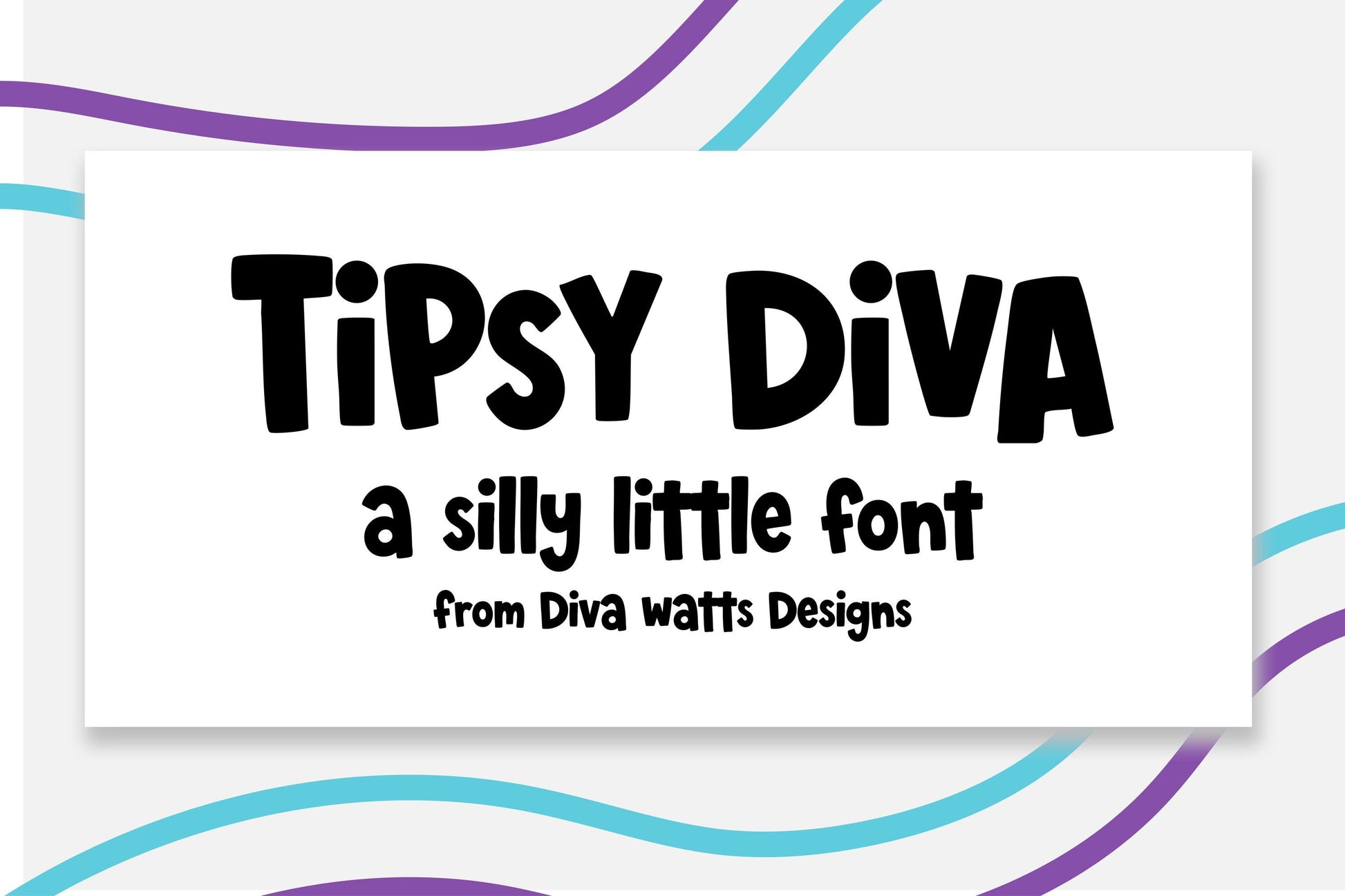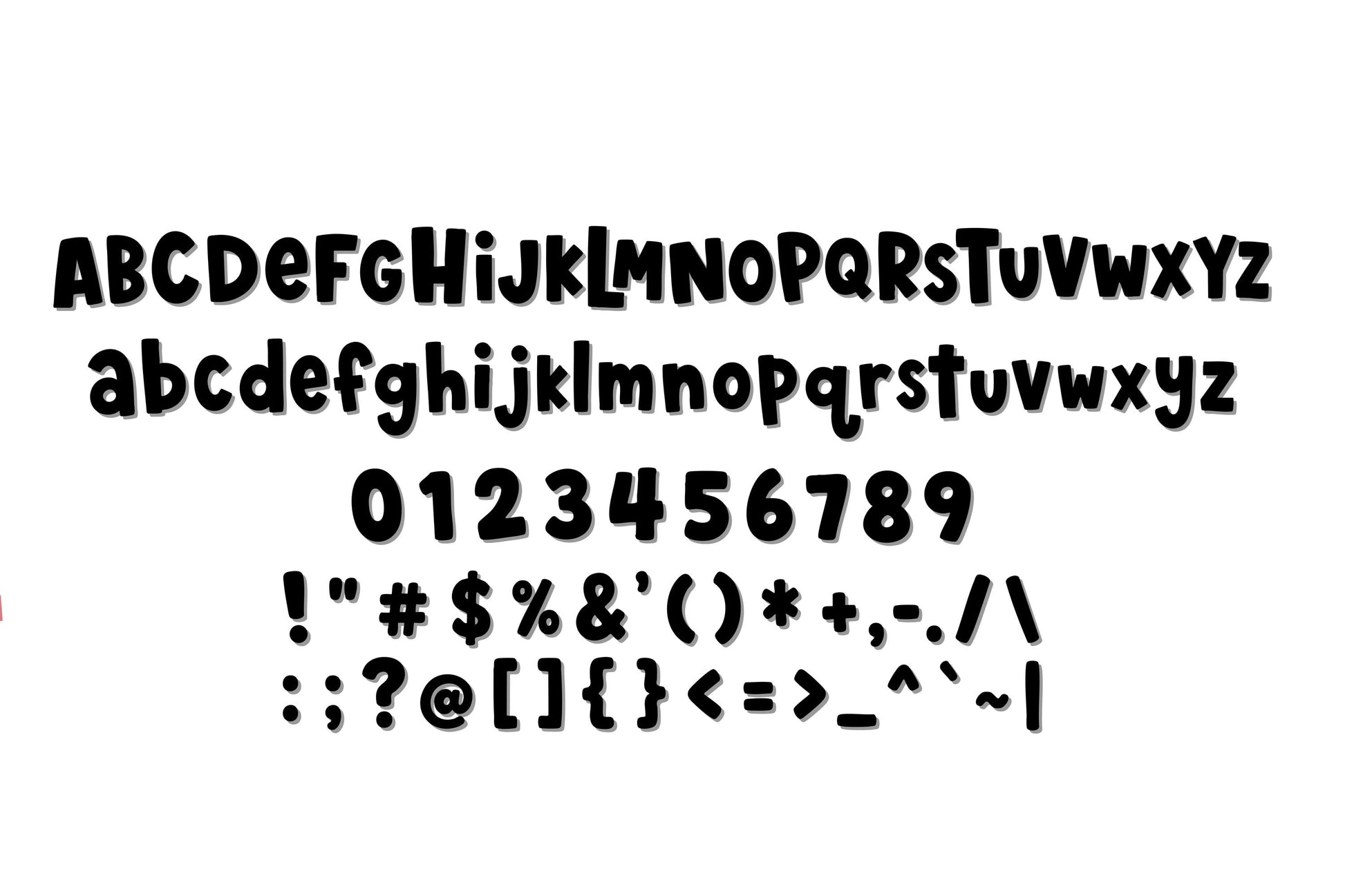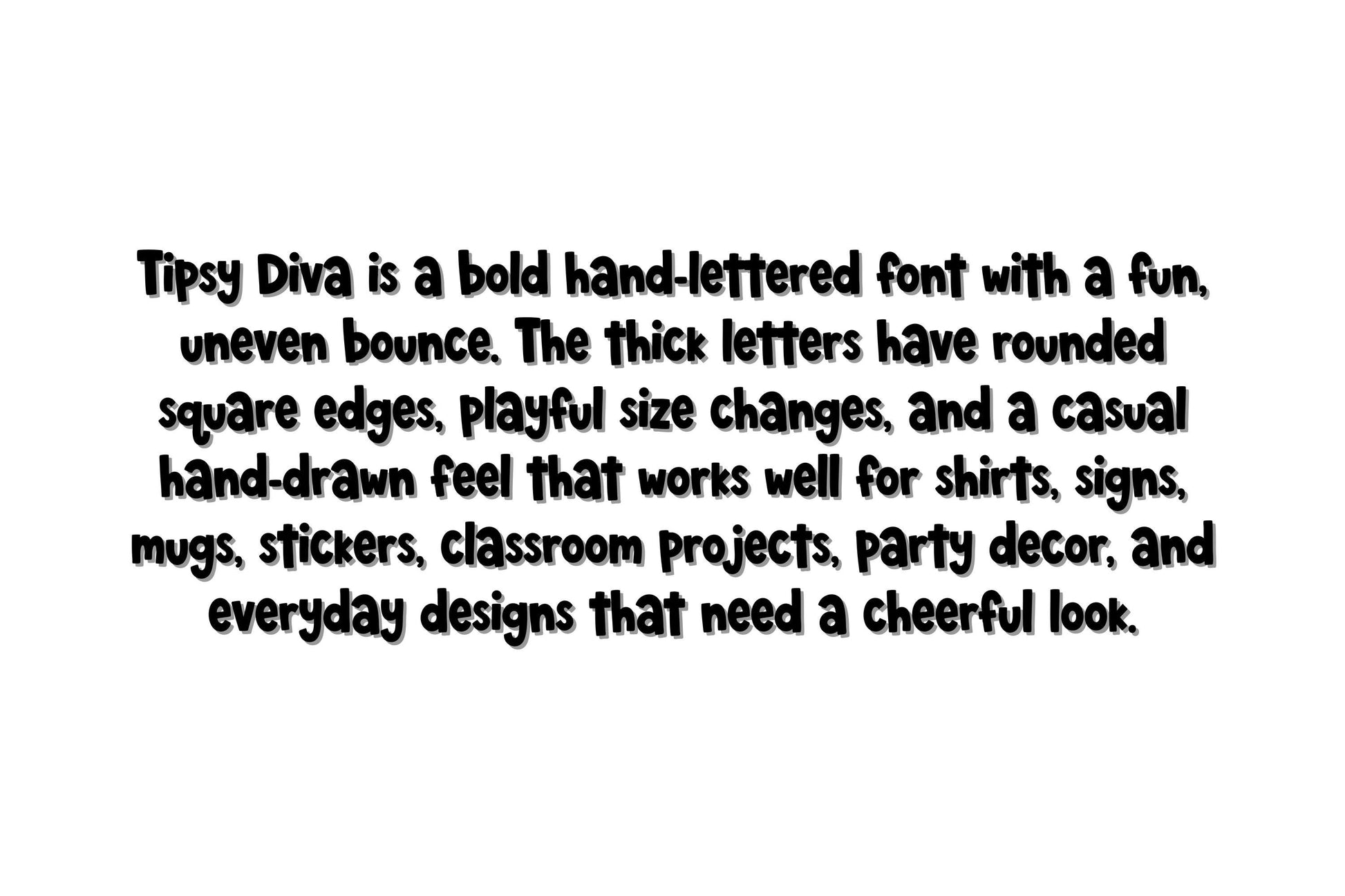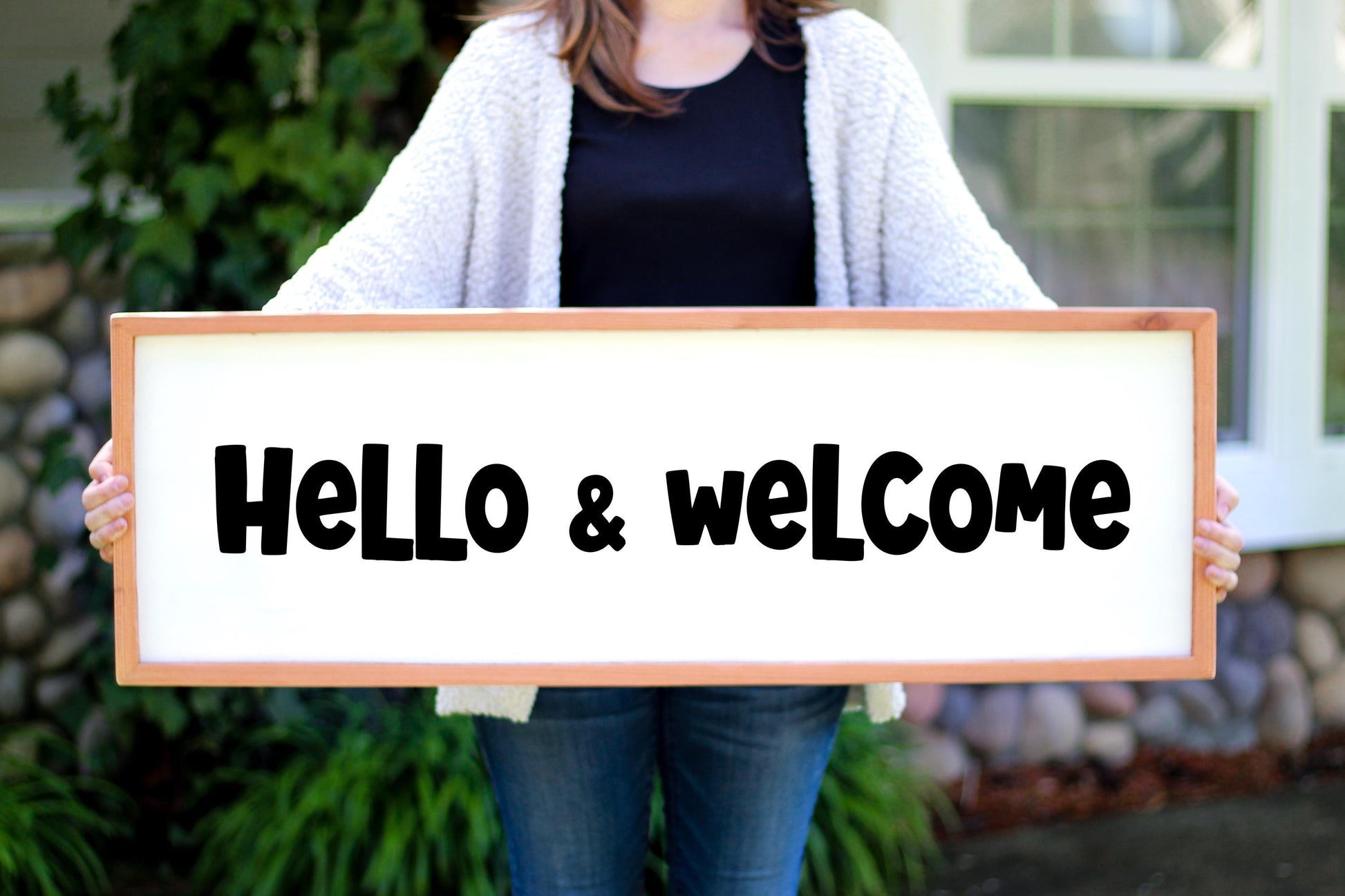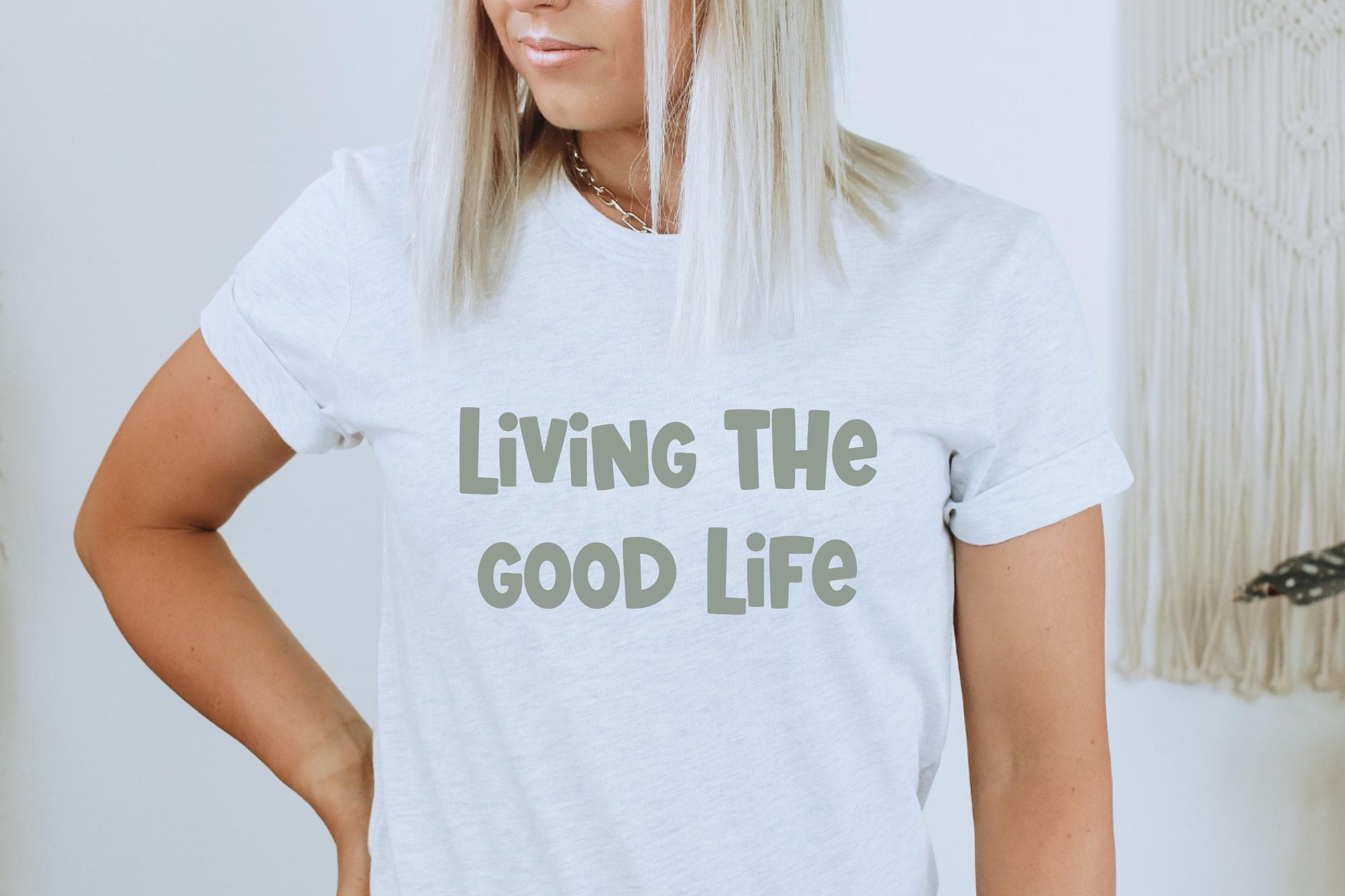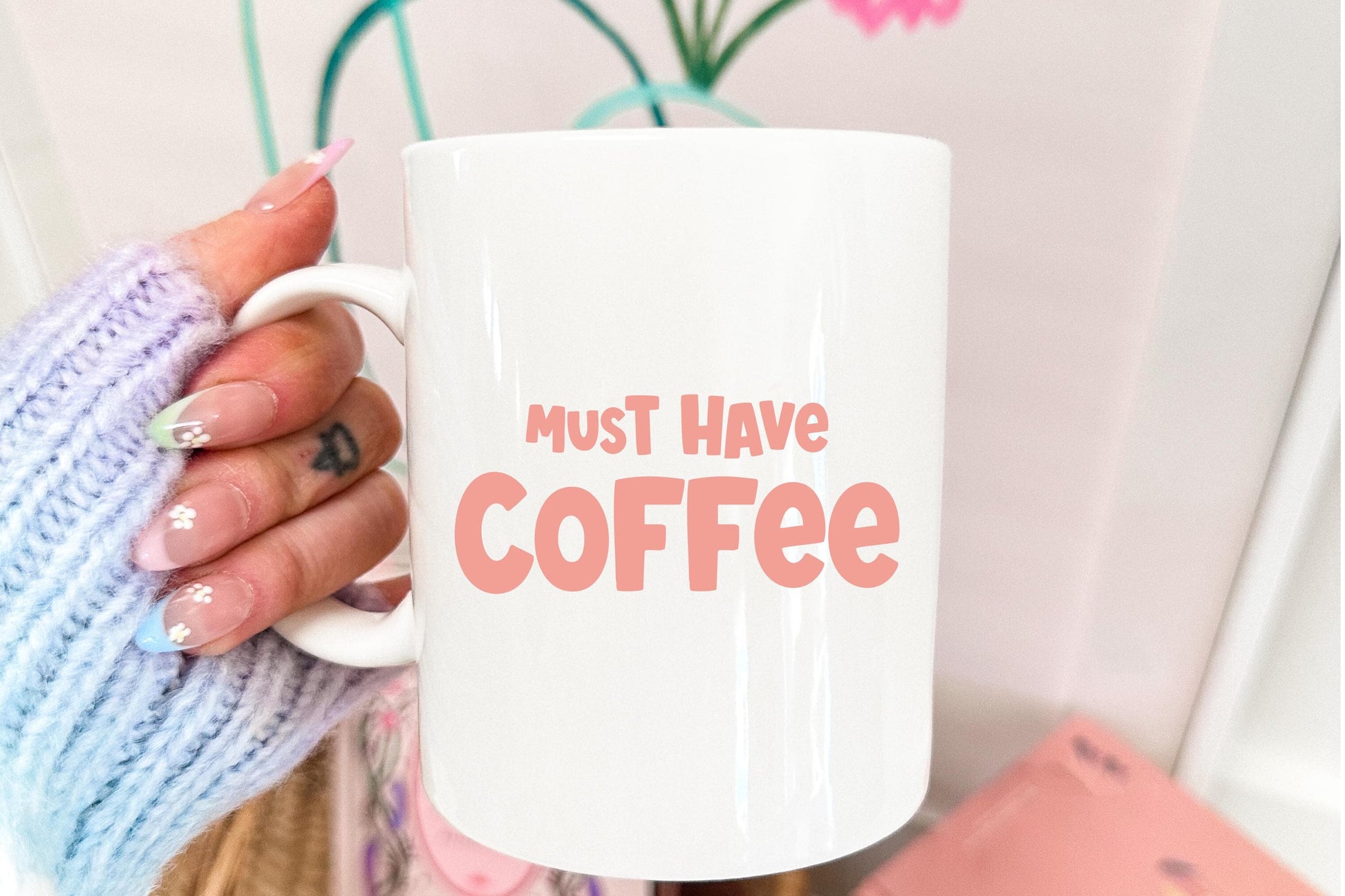
Tipsy Diva is a silly little hand-drawn display font designed to add playful personality and quirky charm to your creative projects. Featuring bold, imperfect letterforms with a fun handwritten feel, this font is perfect for crafts, invitations, classroom resources, stickers, shirts, signs, sublimation designs, and creative projects that need a cheerful touch.
This font includes uppercase letters, lowercase letters, numbers, and punctuation as shown in the preview images.
Perfect For:
• Children's designs
• Teacher and classroom resources
• Party invitations and decorations
• T-shirt and apparel projects
• Stickers and decals
• Scrapbooking and paper crafts
• Signs and home decor
• Social media graphics
• Handmade business projects
Why You'll Love It:
• Playful hand-drawn style
• Includes uppercase, lowercase, numbers, and punctuation
Whether you're creating classroom materials, party decor, signs, stickers, or personalized gifts, Tipsy Diva adds a fun and lighthearted look that stands out.